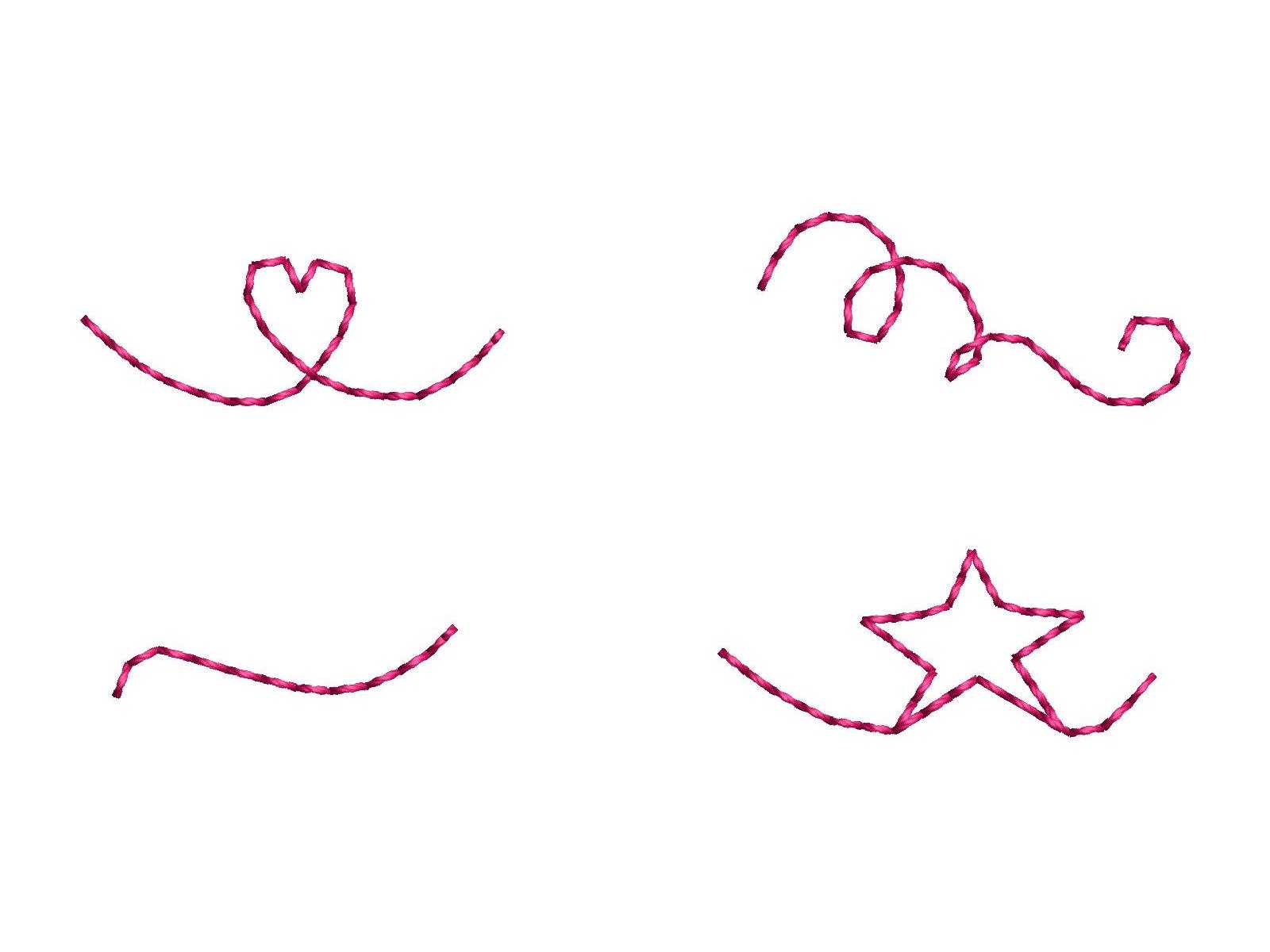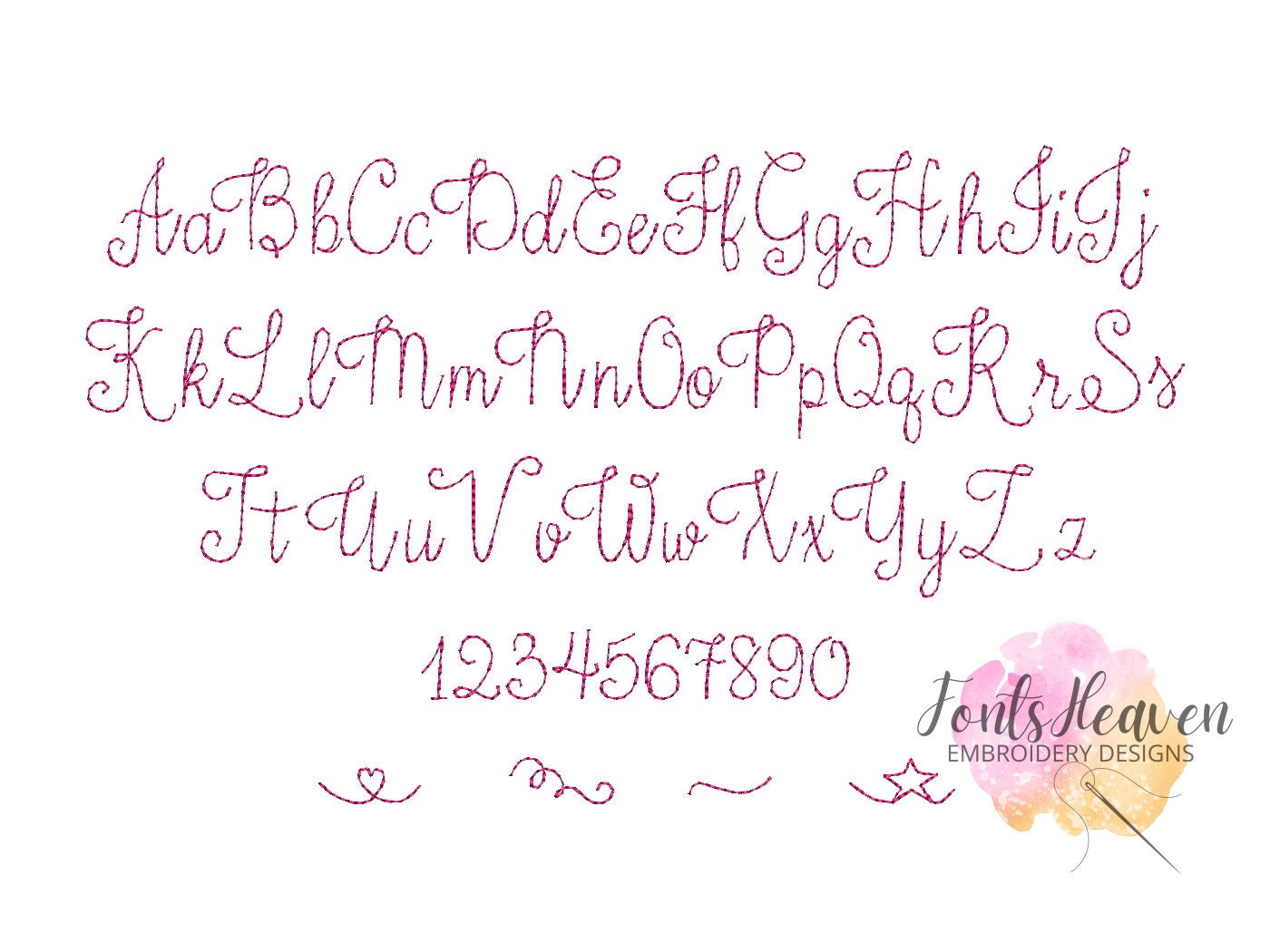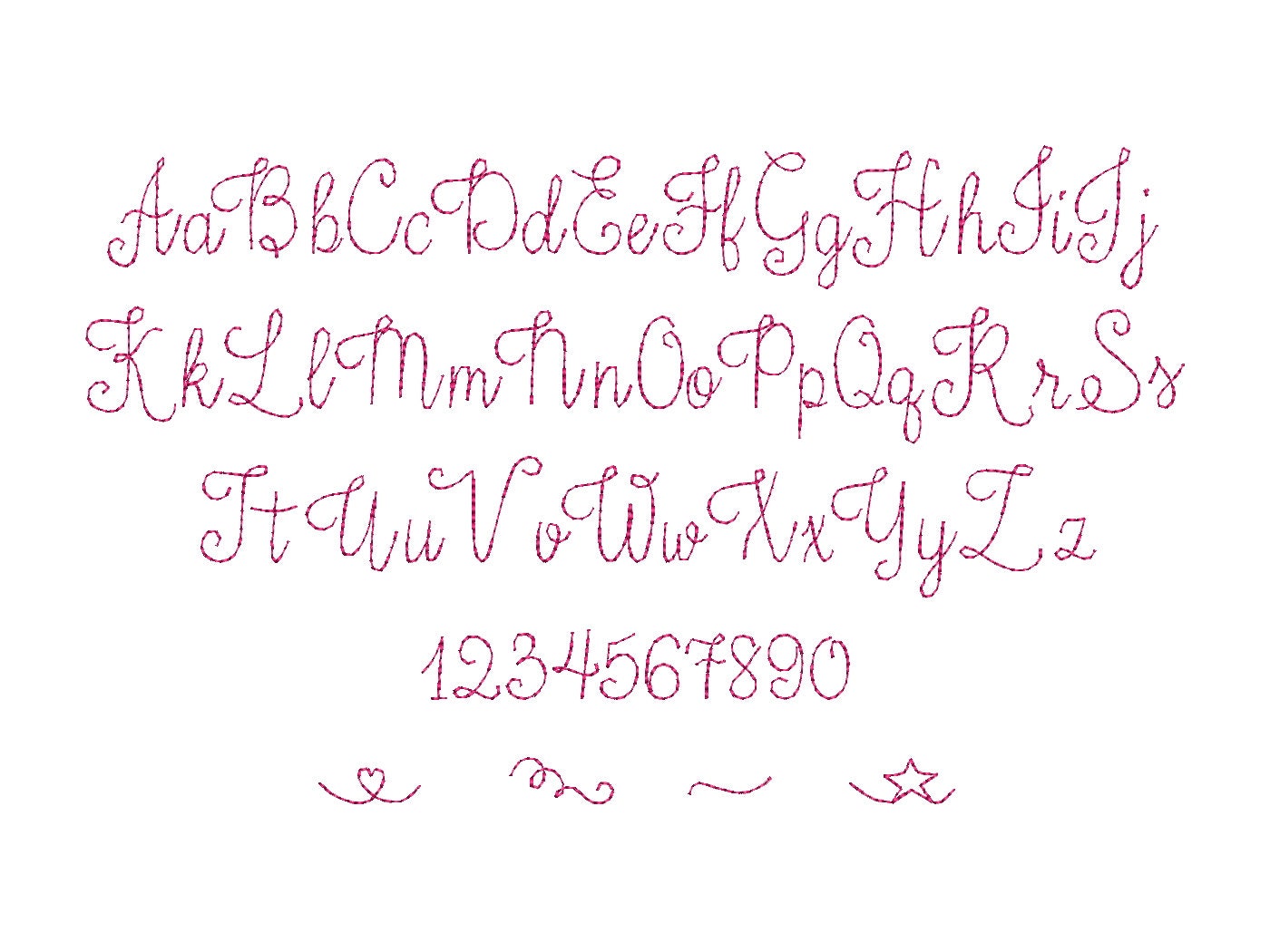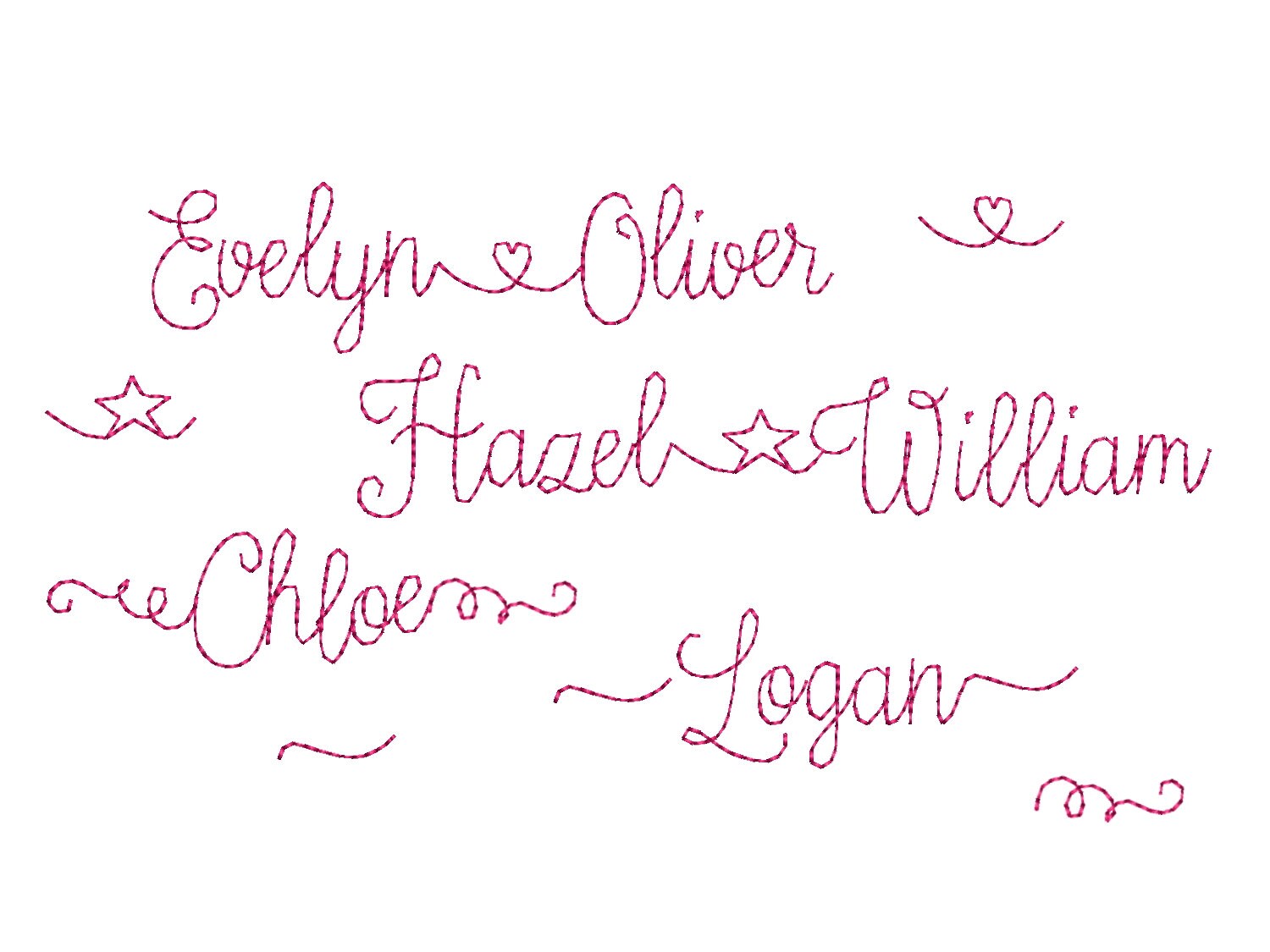
Bean stitch script handwritten cursive Font with Tails & Connections machine embroidery designs mini sizes 2/3 up to 3 inches, name saying BX included
Uppercase and lowercase letters, numbers, tails and connections.
2 types of connections
2 types of tails